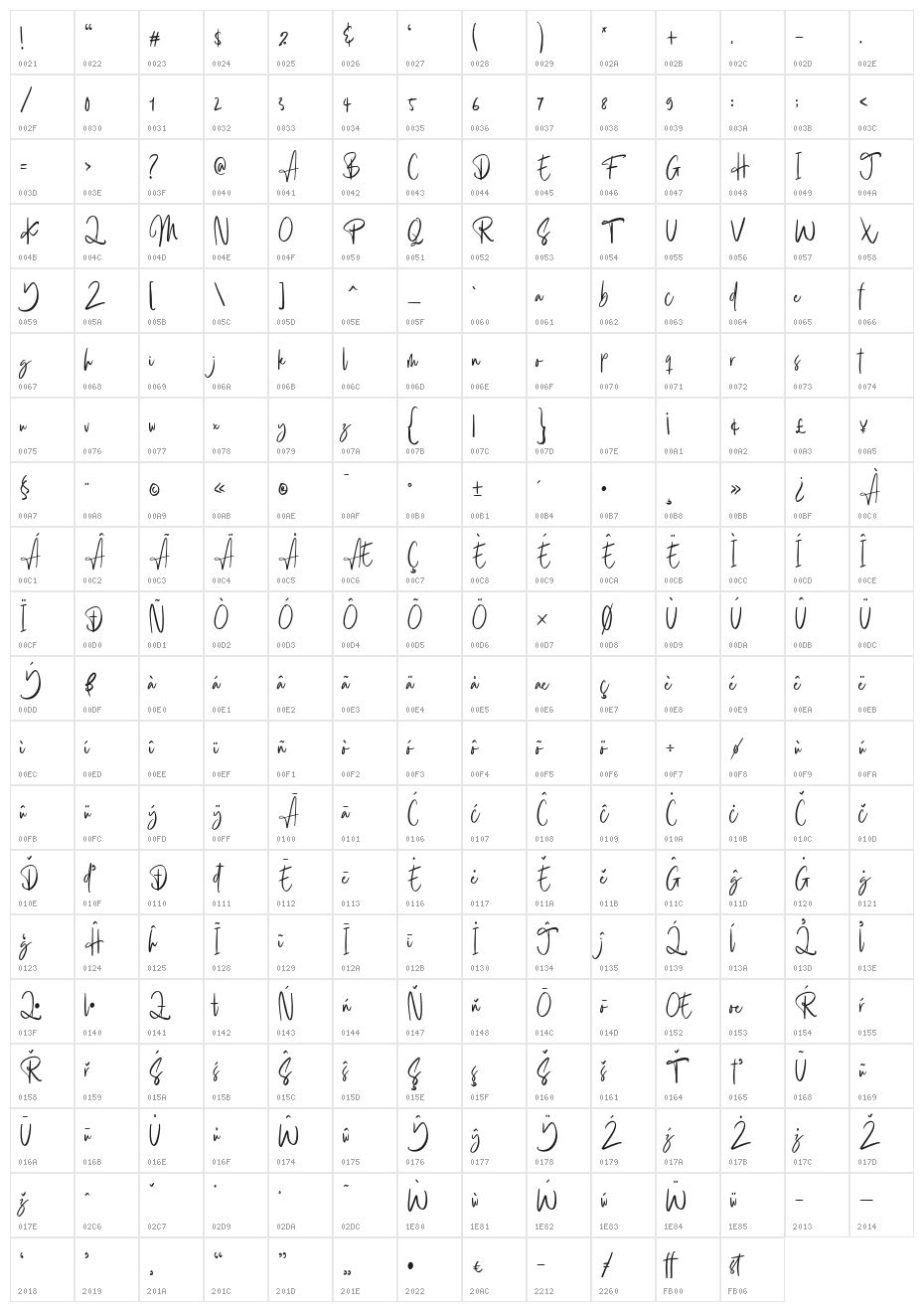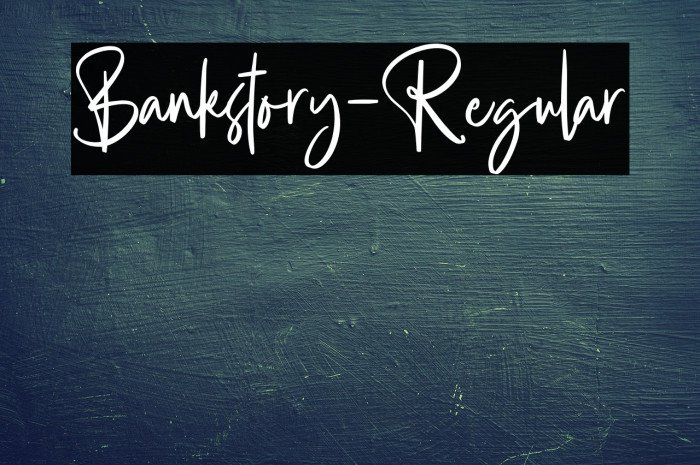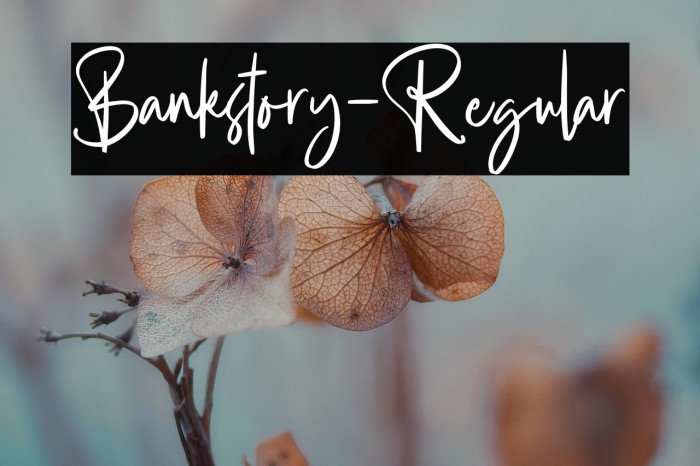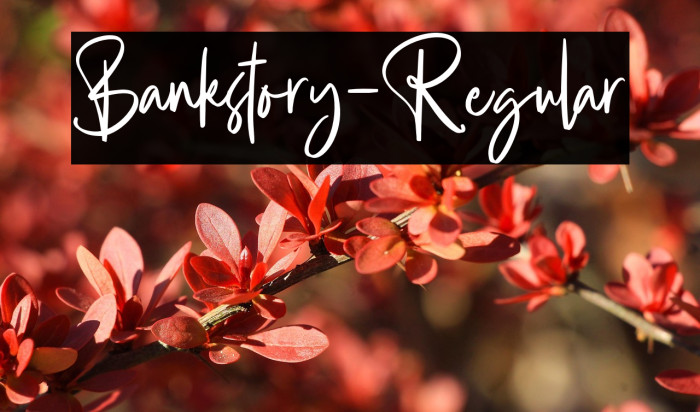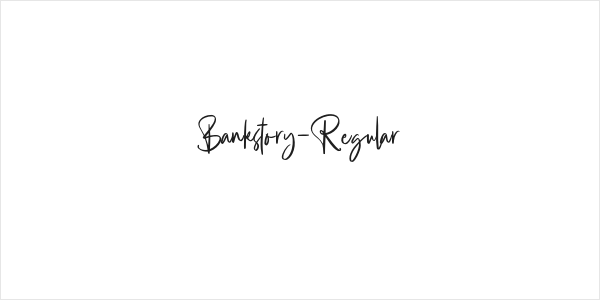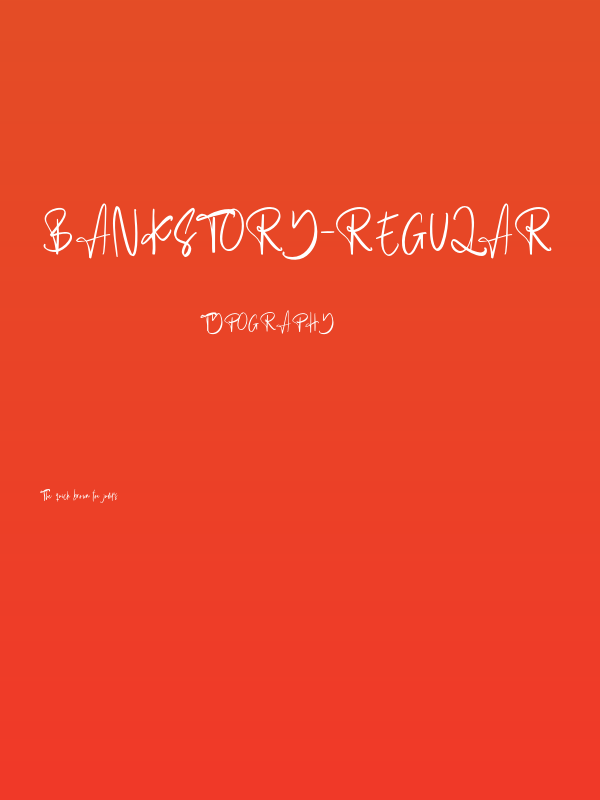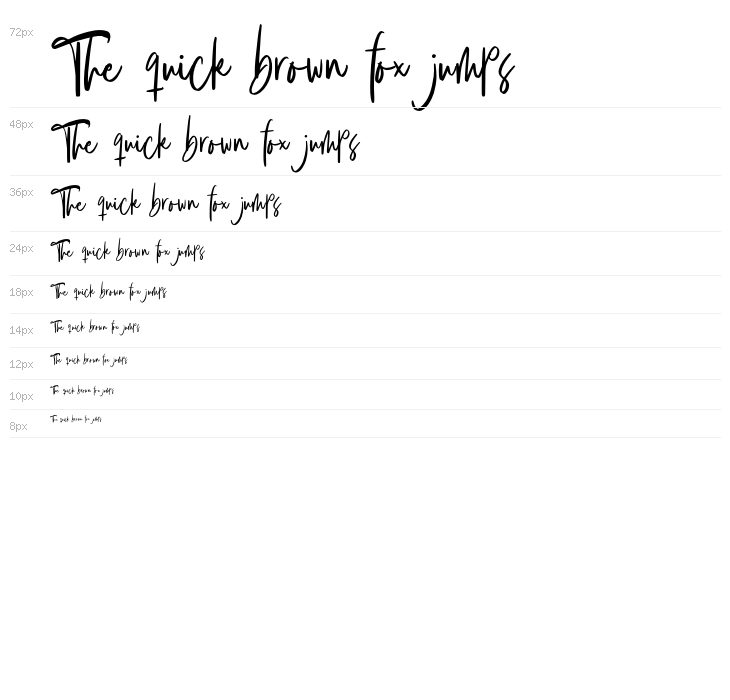
Bankstory-Regular Font
Bankstory-Regular Description
This font exhibits a lively and dynamic handwritten style, characterized by its fluid and slightly irregular strokes that give it a personal and informal feel. The uppercase letters are bold and expressive, with a playful touch that adds a sense of movement. The lowercase letters maintain a consistent flow, enhancing the handwritten aesthetic. Numbers and special characters are crafted with the same attention to detail, ensuring a cohesive look across all elements. The overall design is both modern and approachable, making it suitable for a variety of creative projects.